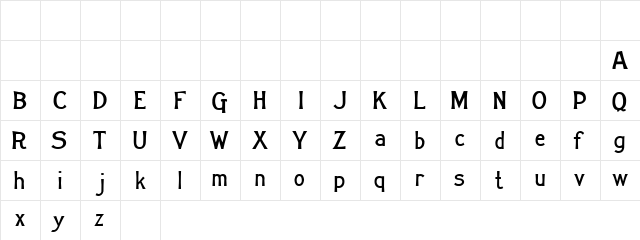
Stonehouse Demo Regular
Design Context for Stonehouse Demo Typeface
Stonehouse Demo offers clean, dependable letterforms without strong stylistic allegiance, making it a practical choice for designers who need flexibility.
Pro Tip: Use Stonehouse Demo in both headline and body roles to test its range before committing to a single application.